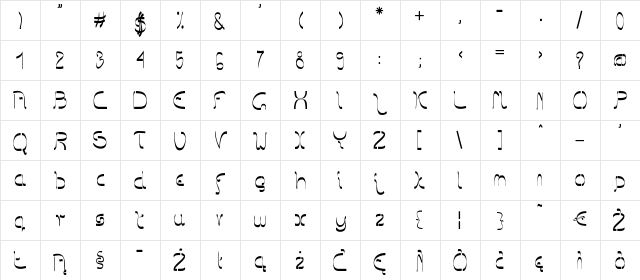
Barbarjowe Krzywki Regular
Design Context for Barbarjowe Krzywki Typeface
Barbarjowe Krzywki is a composed and adaptable typeface that performs quietly and consistently across a wide range of design contexts.